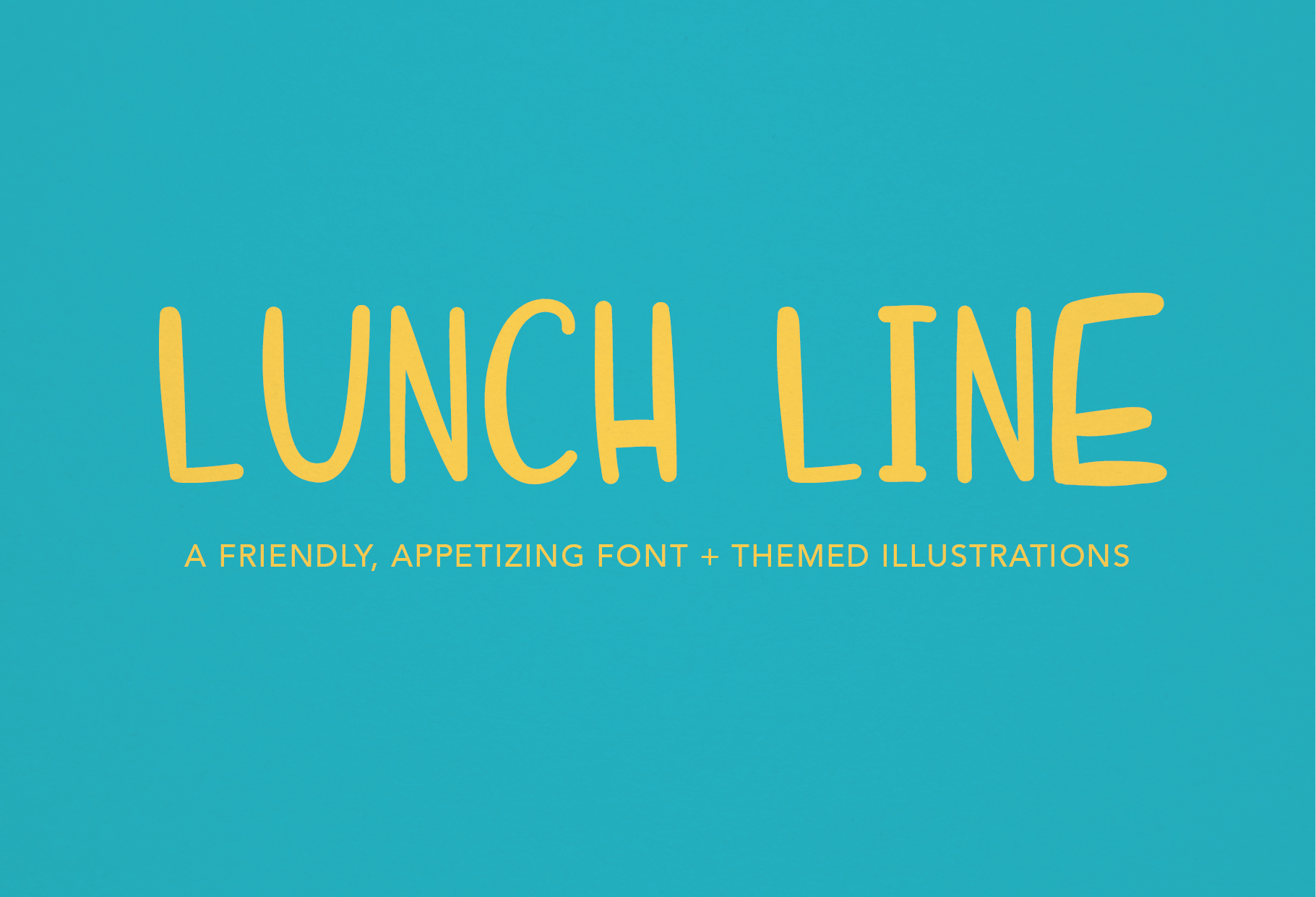
Lunch Line | Font + Illustration Set
This is Lunch Line, a friendly, appetizing font. Lunch Line is ideal for digital illustrations, menus, blogs, social media graphics and more.
- Capital and lowercase letters